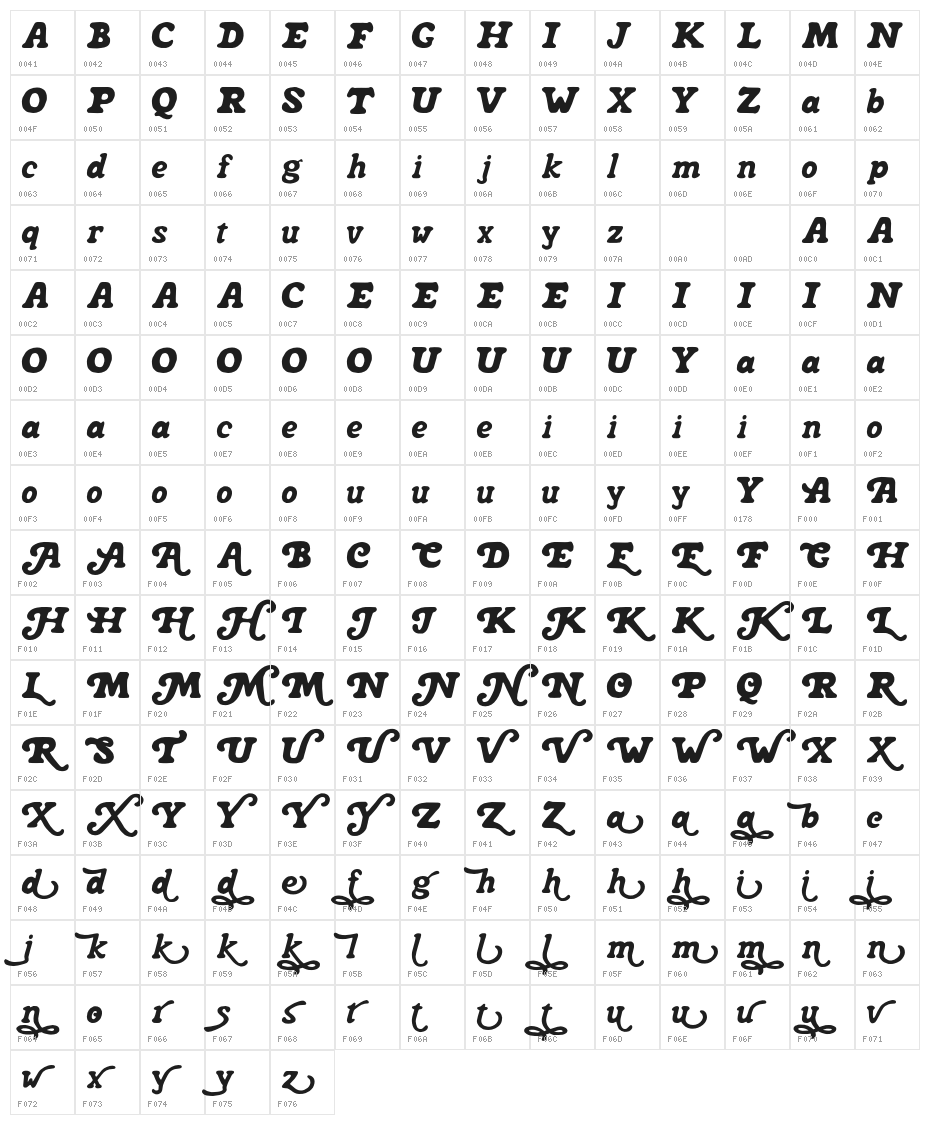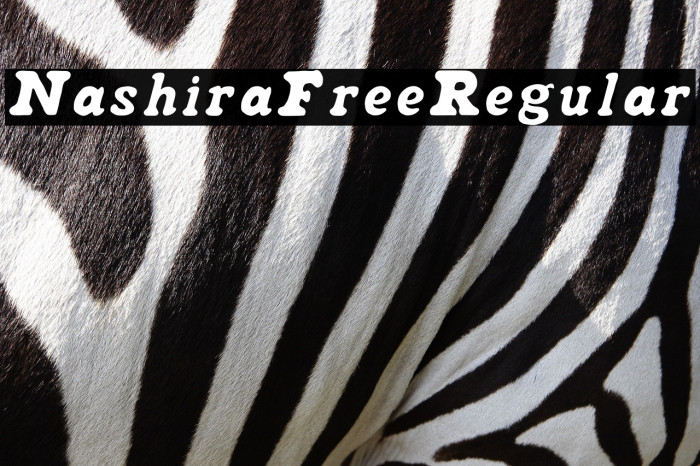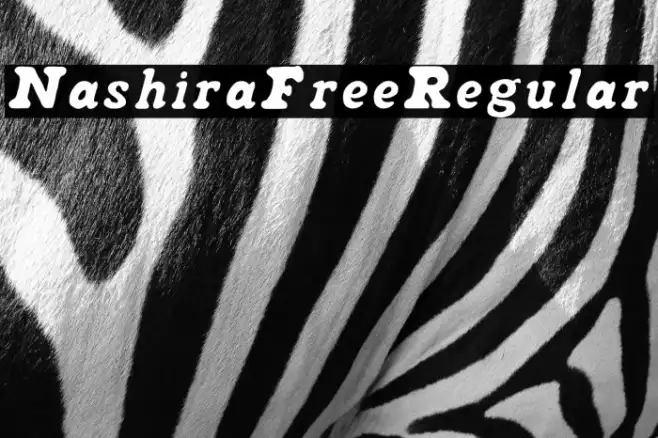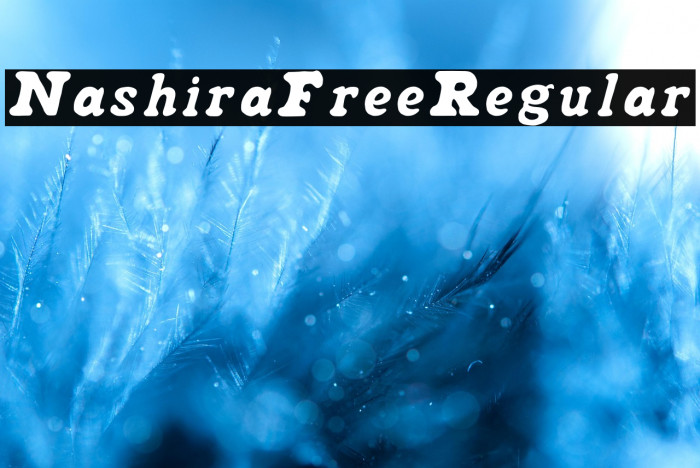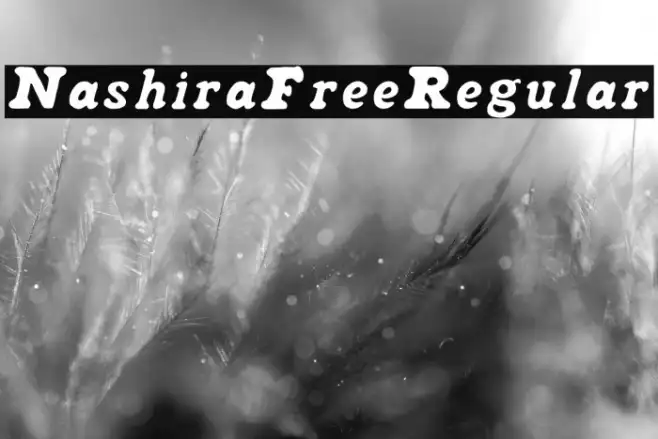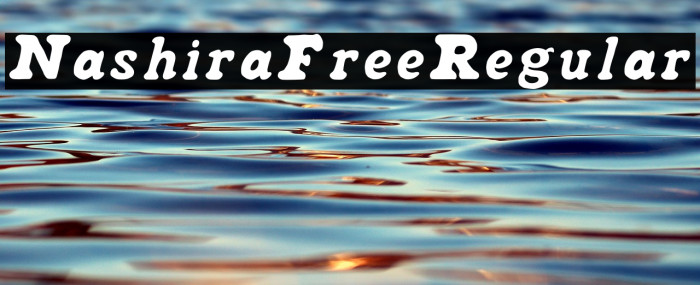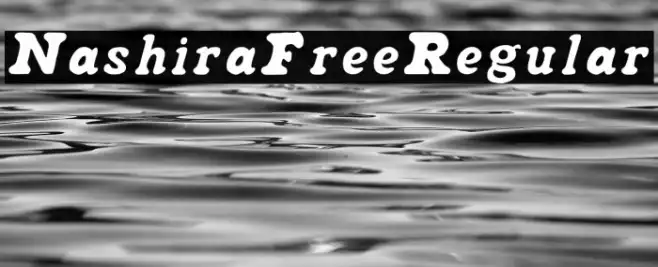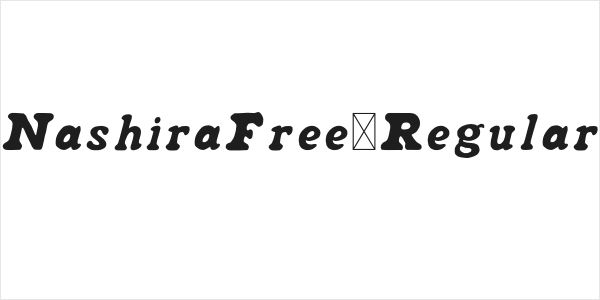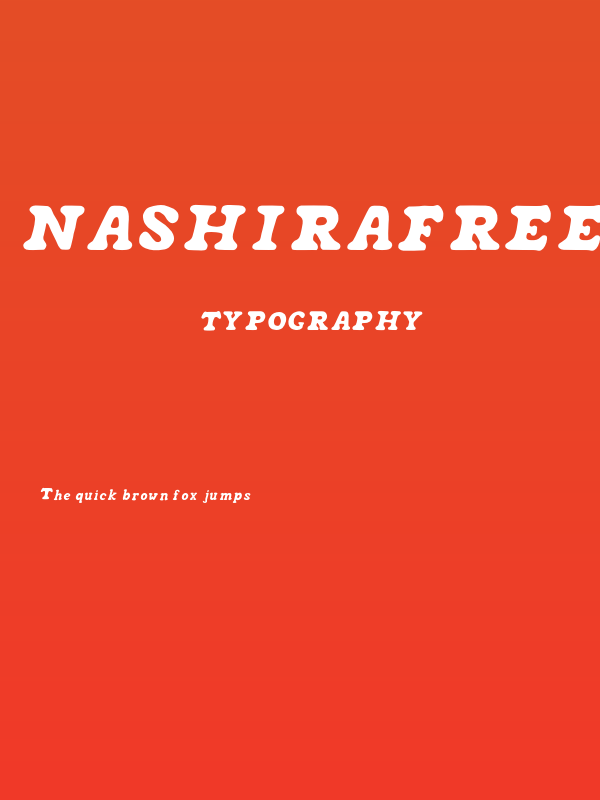
NashiraFree-Regular Font
NashiraFree-Regular Description
This font features a bold and playful style with a unique blend of rounded and slightly exaggerated serifs. The uppercase letters are robust and convey a sense of strength, while the lowercase letters maintain a friendly and approachable appearance. The overall design is reminiscent of vintage typefaces, yet it carries a modern twist with its smooth curves and balanced proportions. The font's distinct character is further enhanced by its medium contrast in stroke thickness, providing a dynamic and engaging visual experience. Ideal for projects that require a touch of whimsy and boldness.
| Overall Style | Vintage, Modern |
| Proposed Projects | Ideal for branding, posters, headlines, and packaging that require a bold and playful touch. |